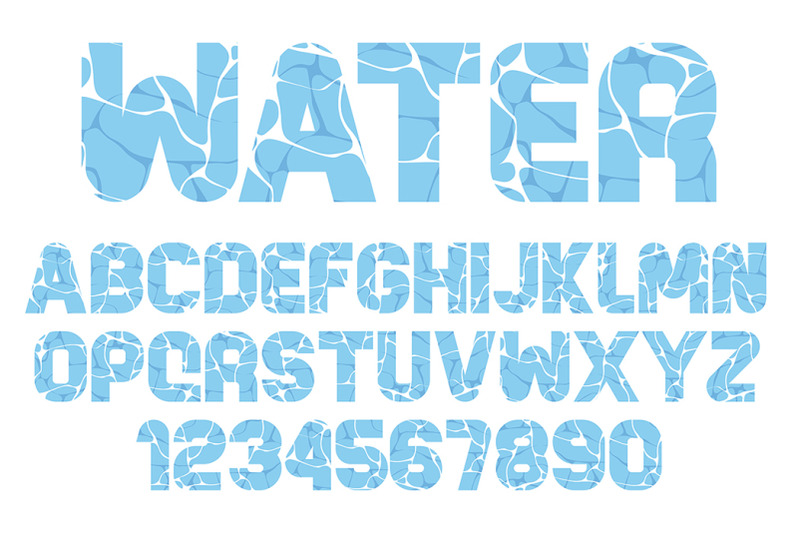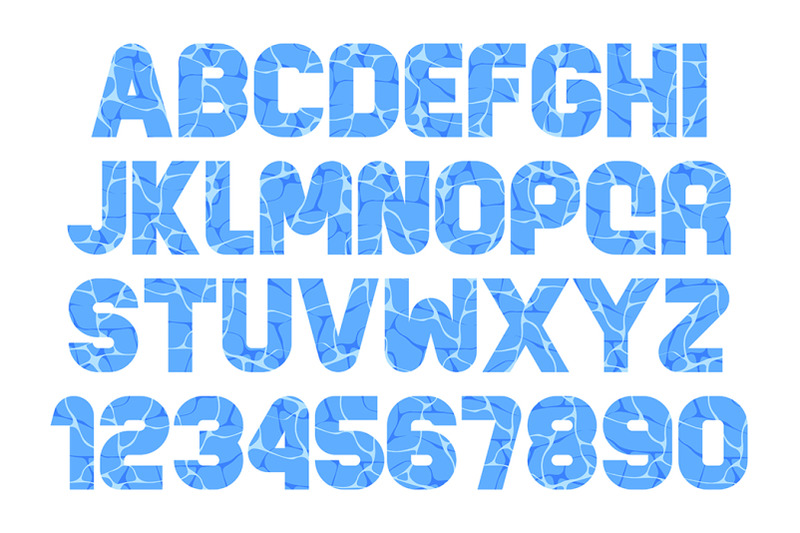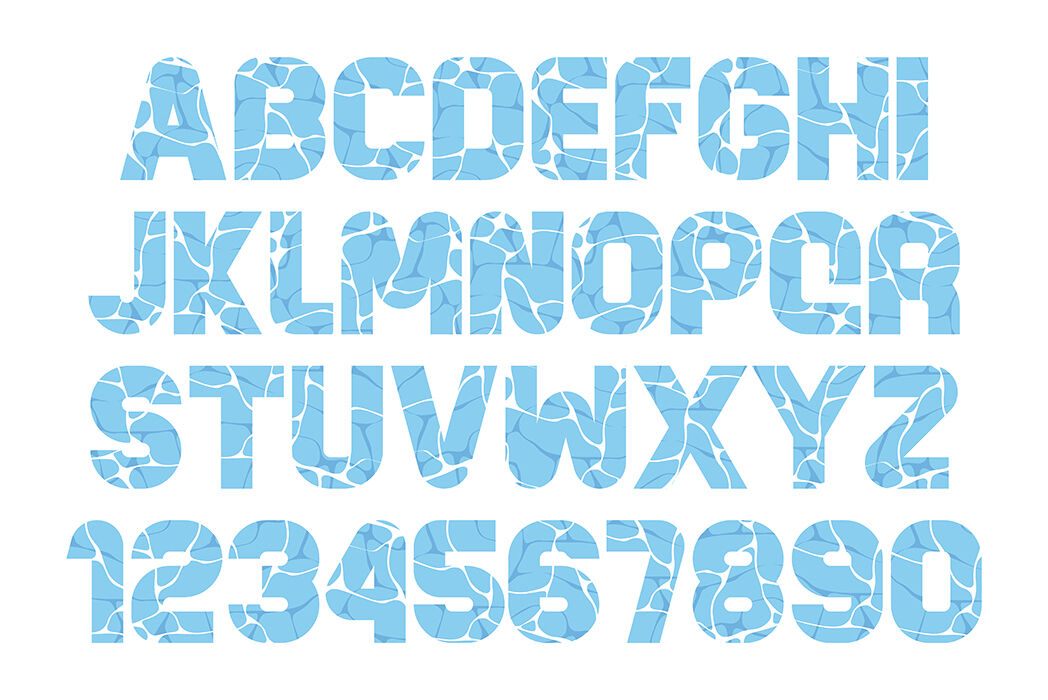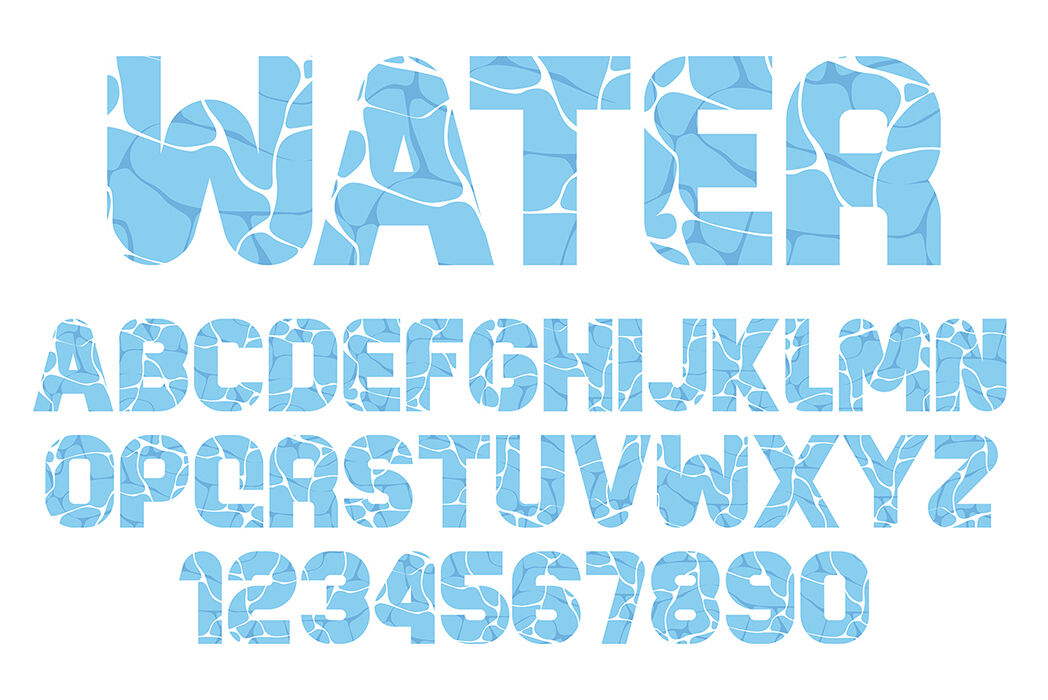
Water Font
Water Font. Water waves style font design. Letters and numbers. Flat style graphic formats (including EPS, AI, CDR) - graphical letters Attention! This is not the fonts. This is vector objects.